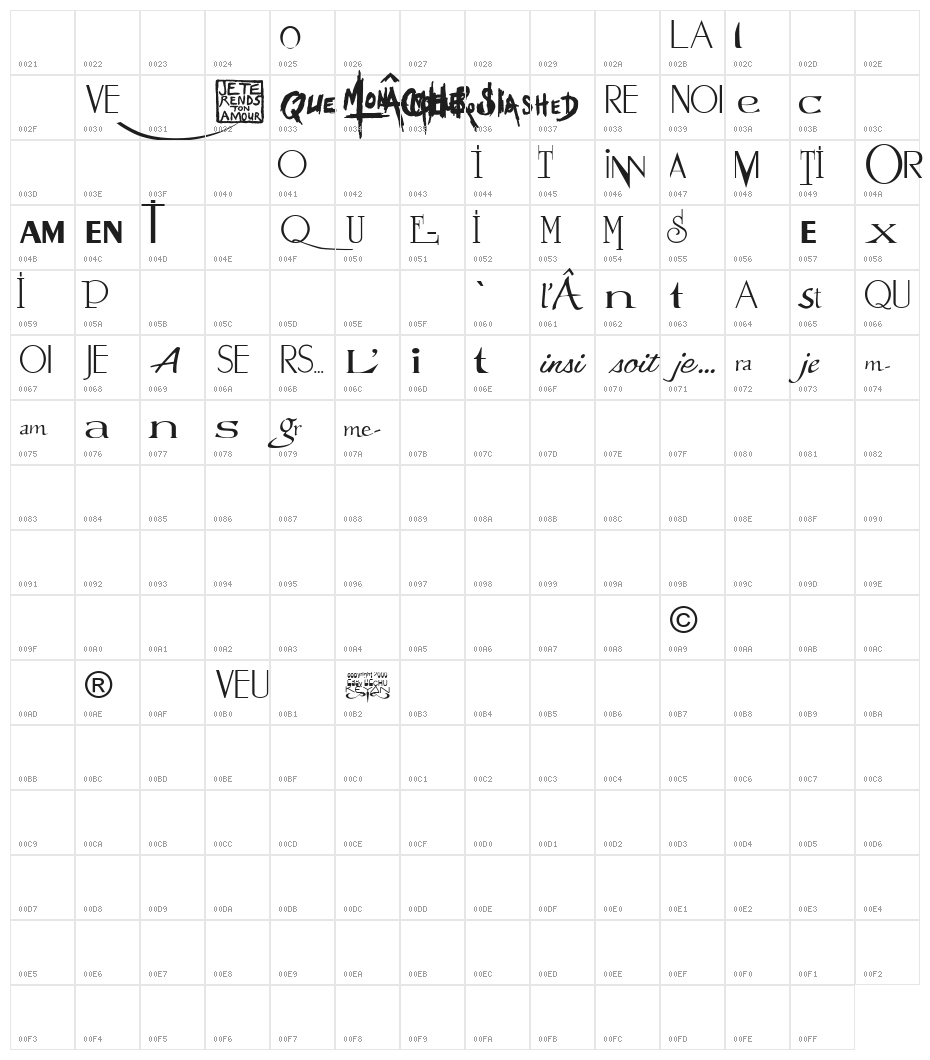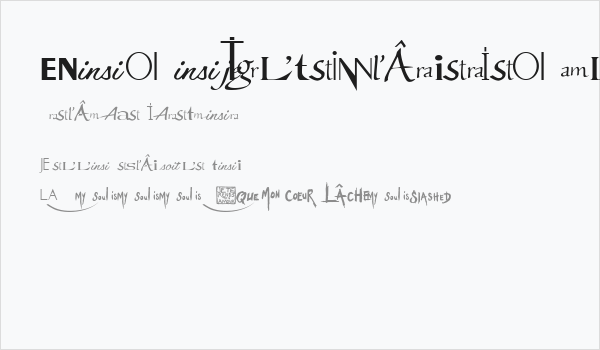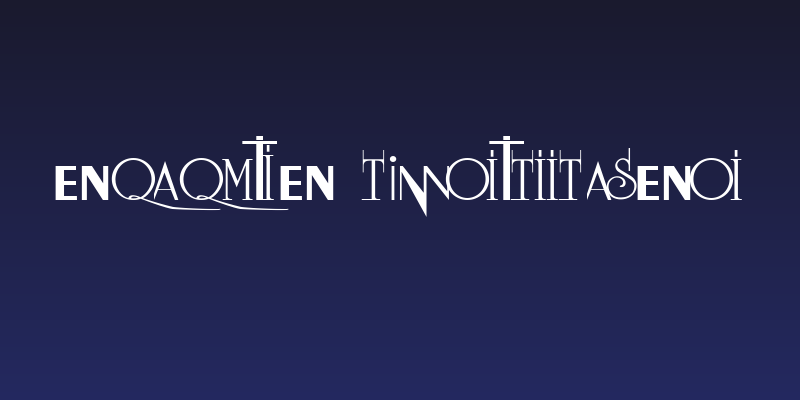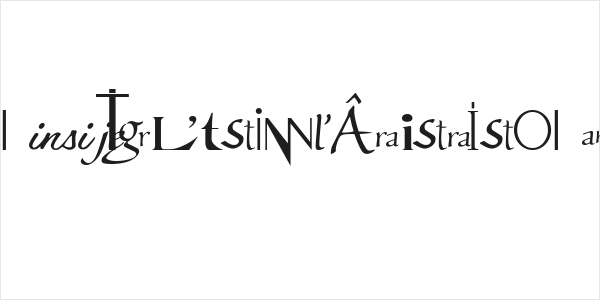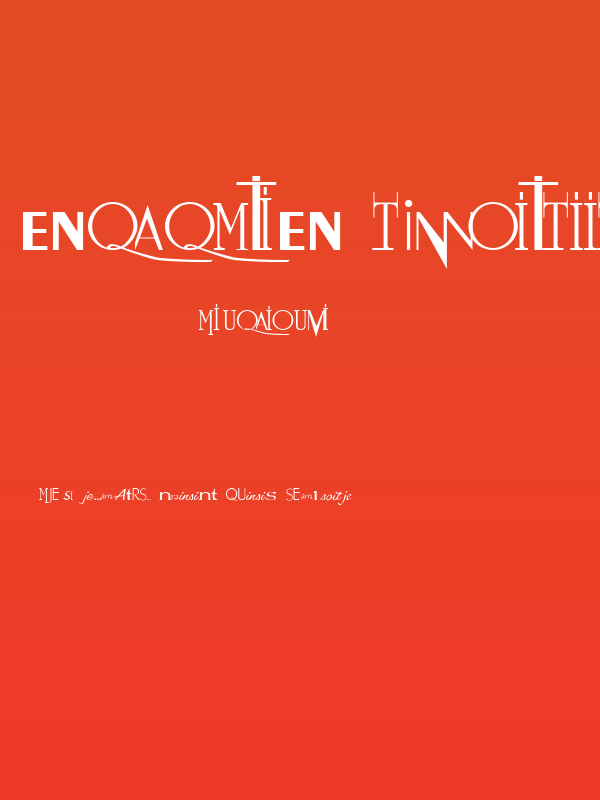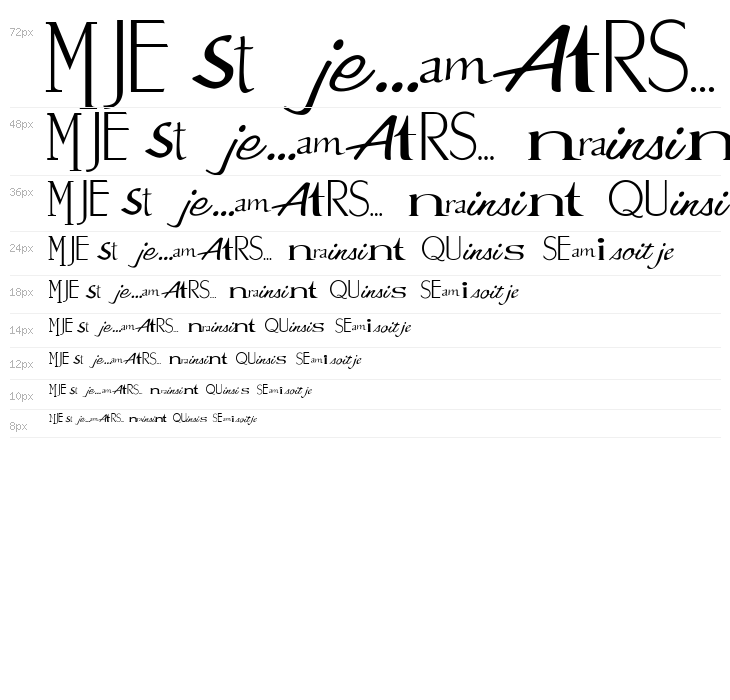
LogosMylneFarmerRegular Font
LogosMylneFarmerRegular Description
This font features a highly decorative and eclectic style, combining elements of both modern and vintage aesthetics. It employs a mix of sharp, angular lines and smooth, flowing curves, creating a dynamic and somewhat theatrical appearance. The characters are uniquely stylized, with some letters exhibiting exaggerated serifs and others having elongated or slashed forms. This font's design is bold and attention-grabbing, making it suitable for artistic and expressive applications. The overall impression is one of creativity and individuality, with a hint of mystery and drama.